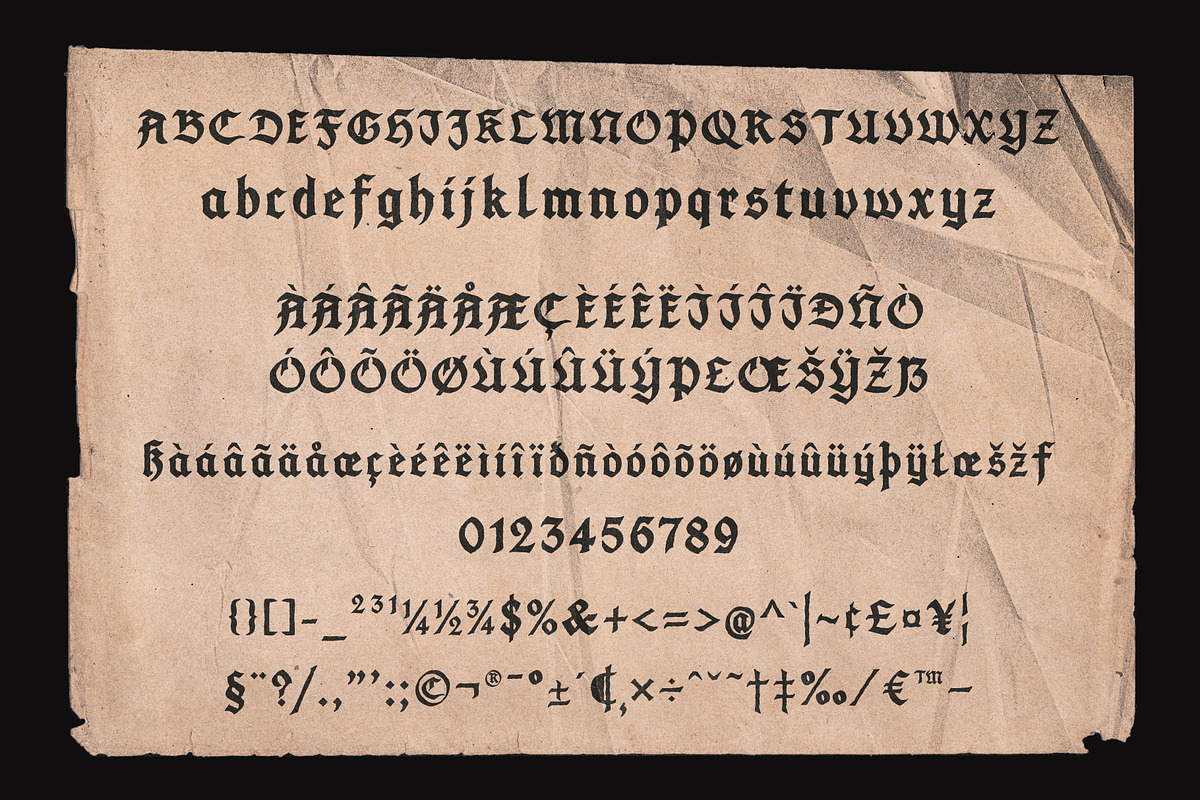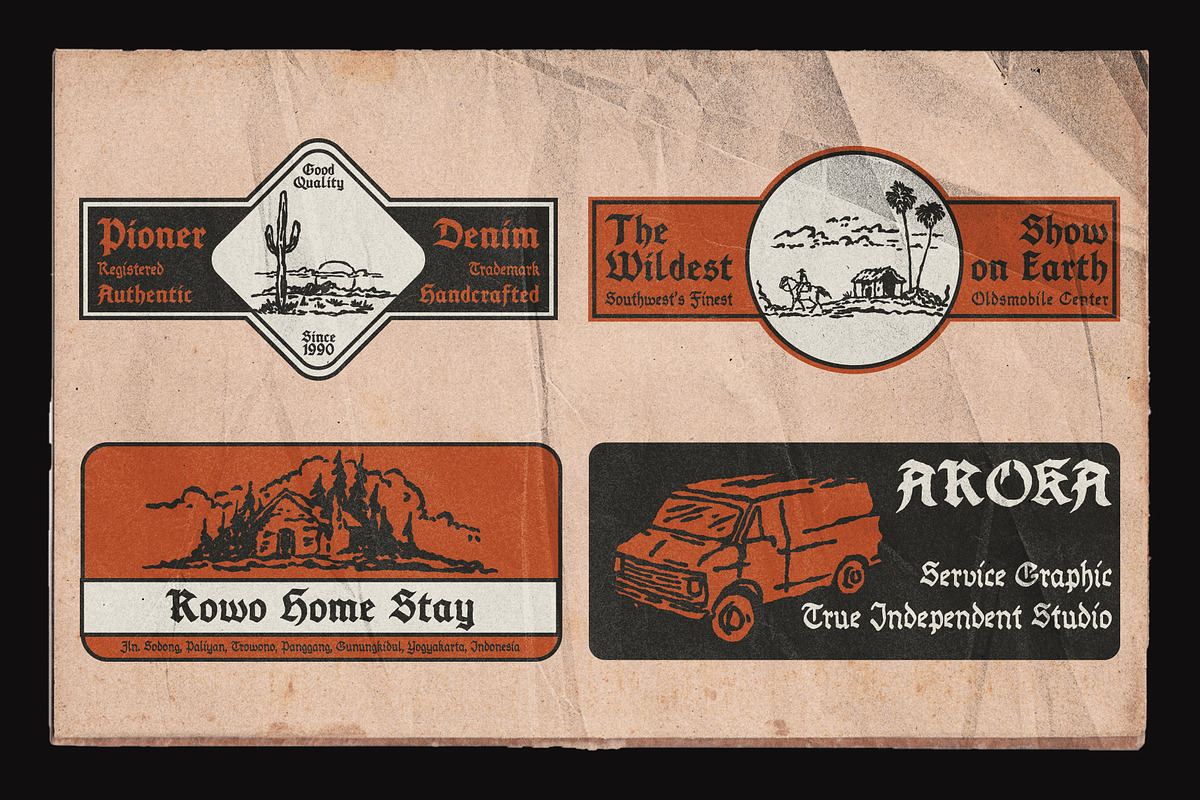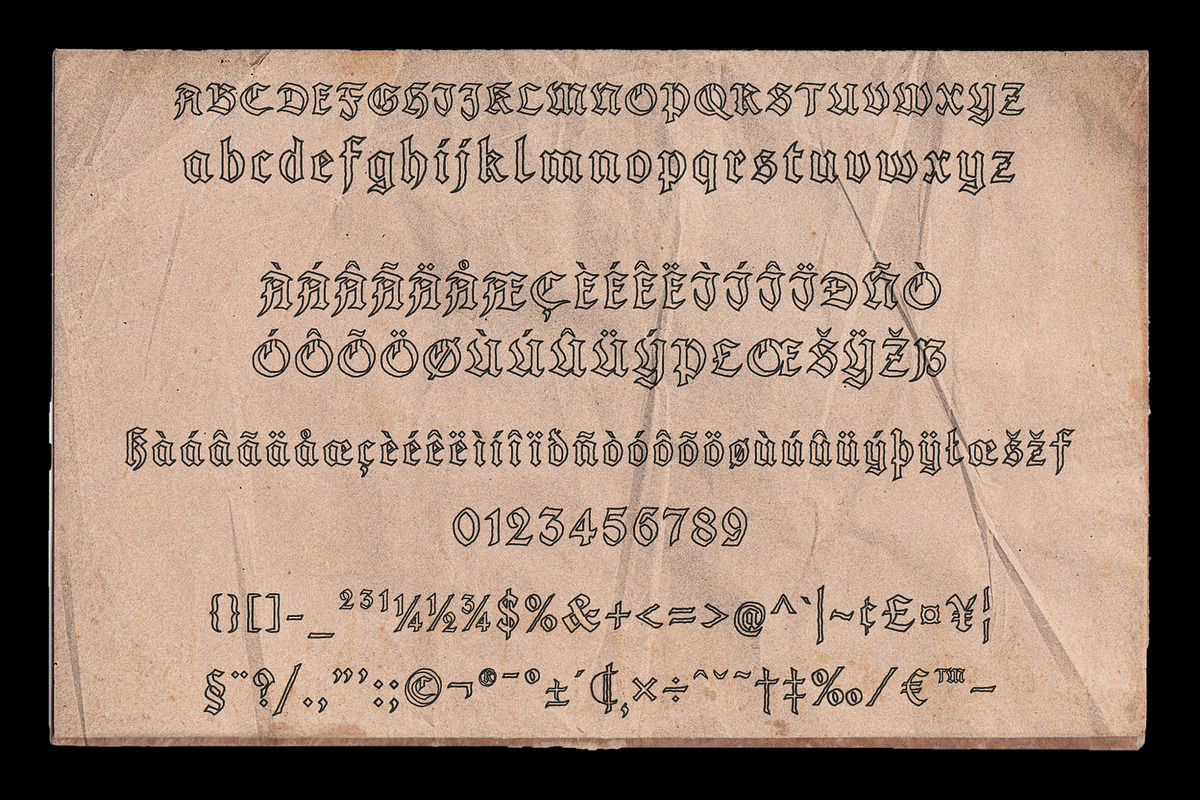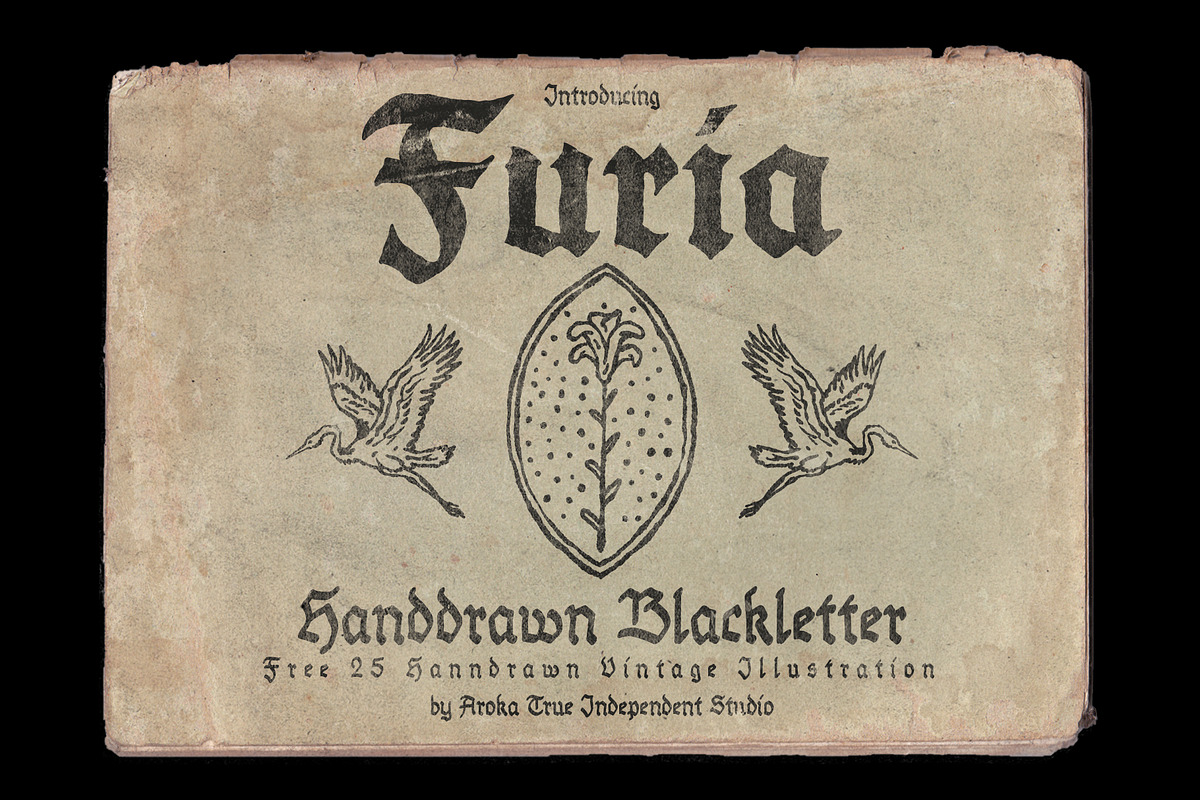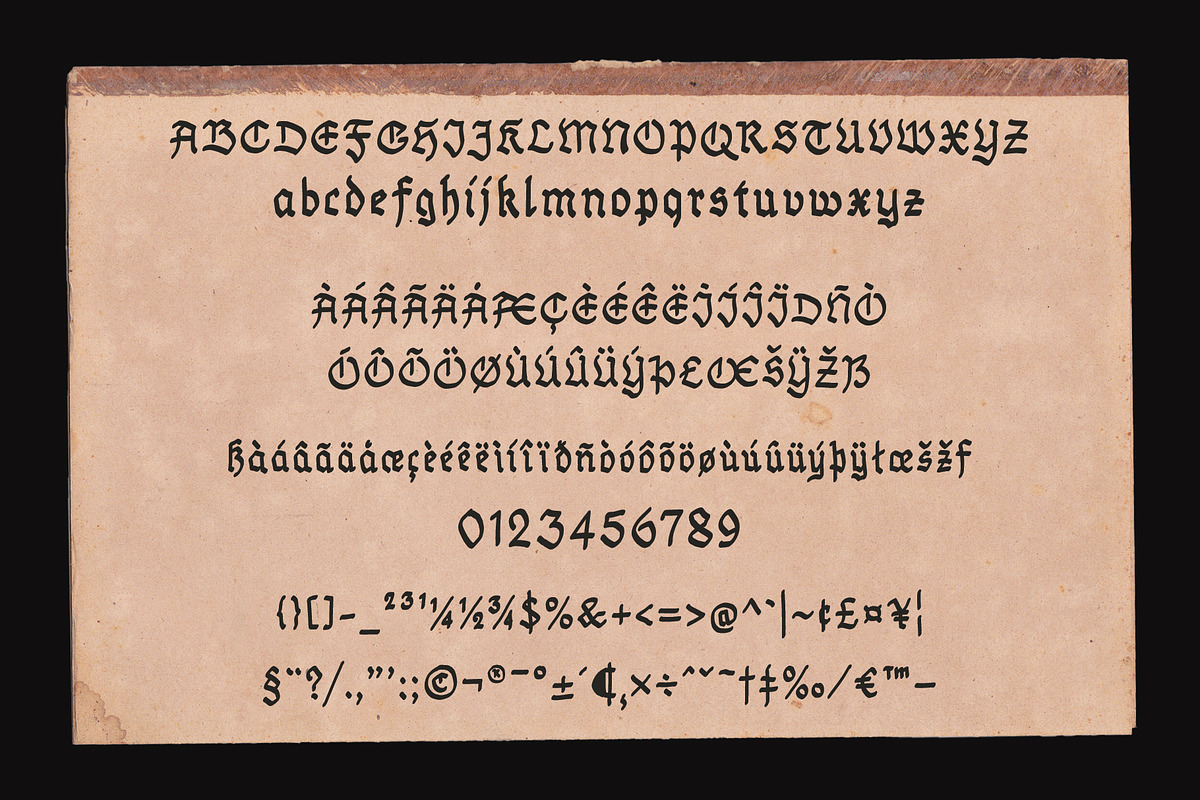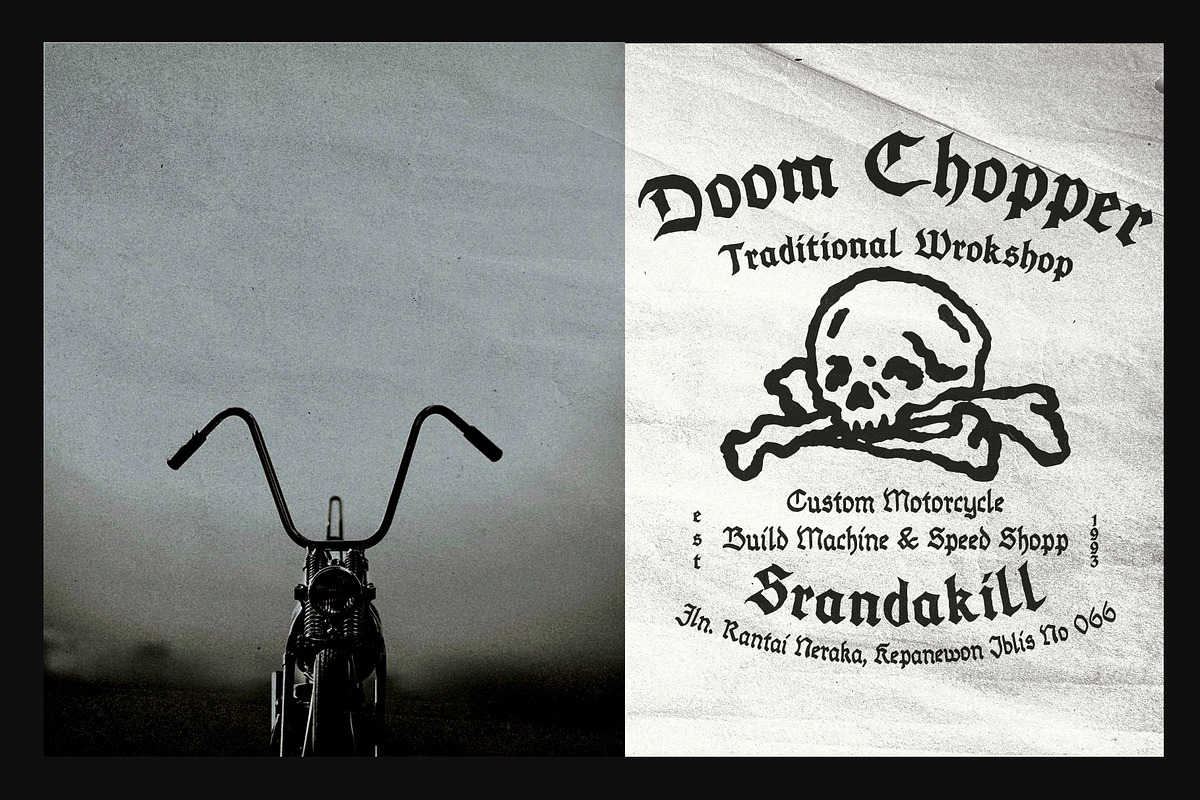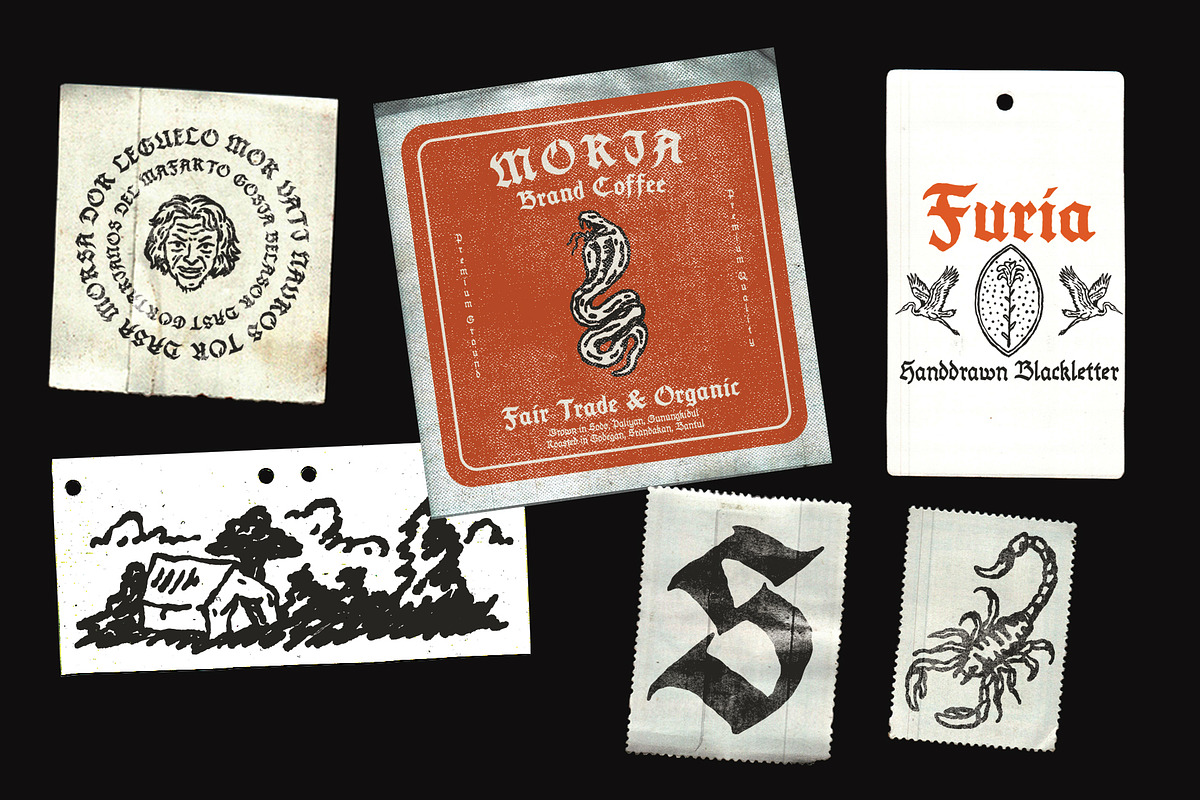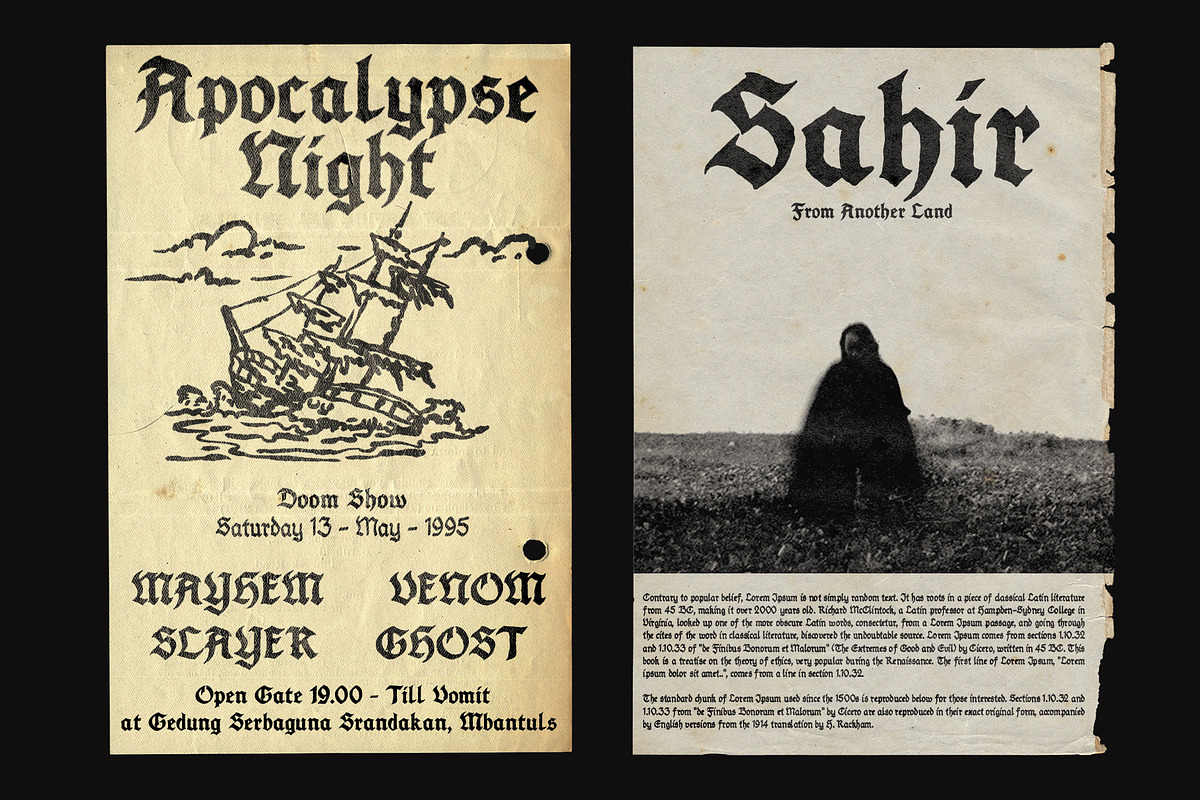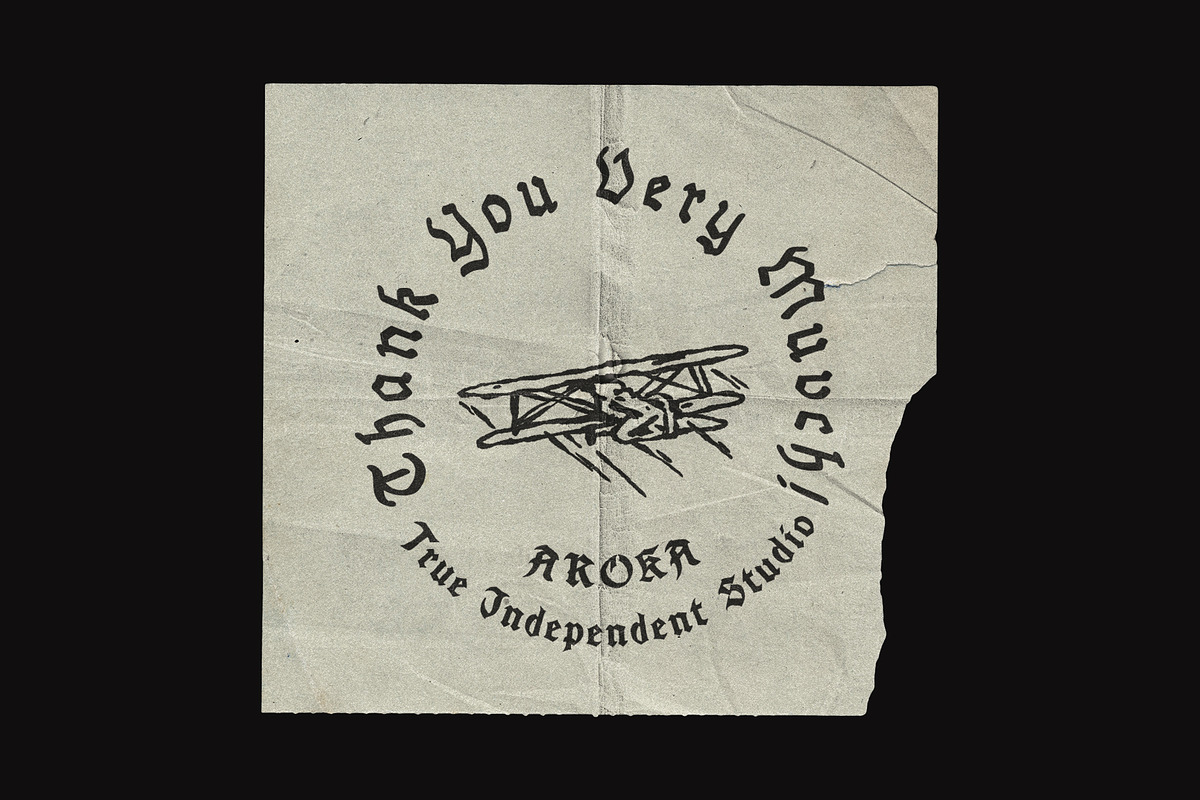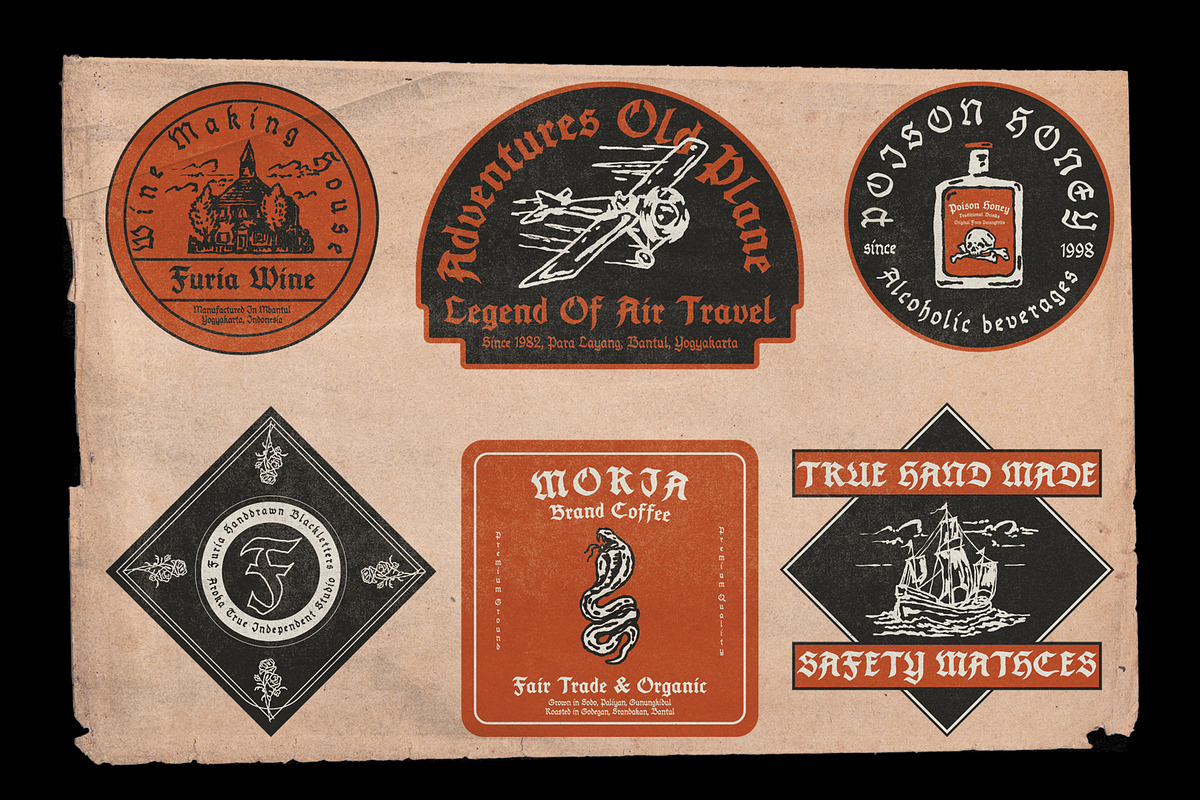
FURIA Handrawn Blackletter
"FURINA" Hand Drawn Black Letters with 3 variations of choice, please check what's inside! accompanied by a bonus of 25 handdrawn icons too, enjoy, thank you!